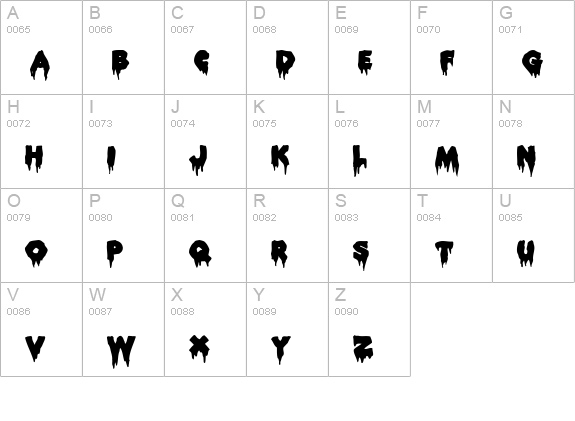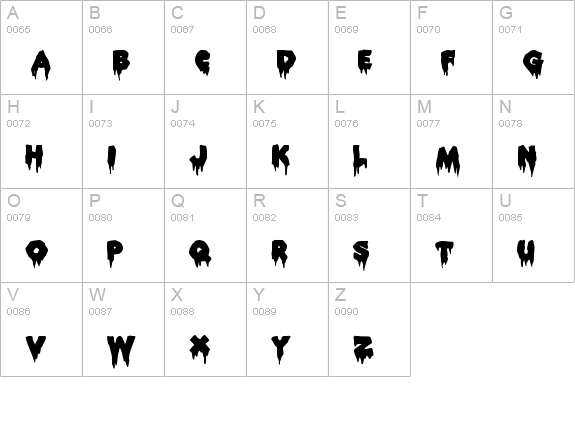
ROCKY Font Details
The ROCKY font is a bold and rugged typeface that exudes strength and power. Its sharp angles and heavy strokes make a strong impact, perfect for conveying a sense of determination and resilience in your designs. Whether you're working on a logo, poster, or branding project, ROCKY will give your text a bold and dynamic look that commands attention. Best of all, the ROCKY font is available for free download at FontsMarket.com. This means you can elevate your designs with this impactful typeface without breaking the bank. Don't miss out on the opportunity to add ROCKY to your font collection and unleash its bold energy in your projects today!